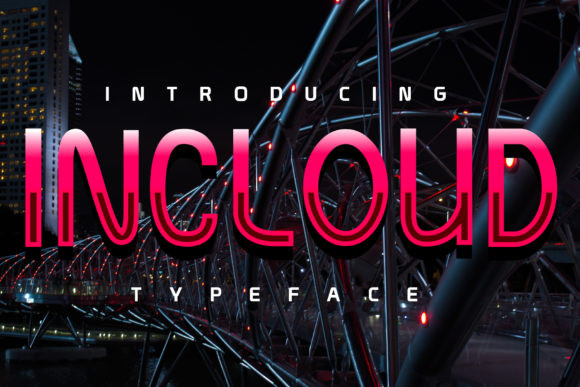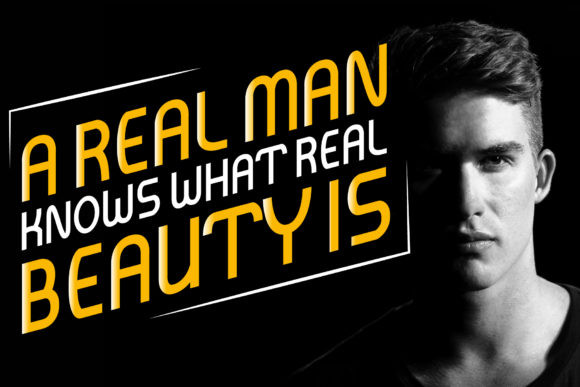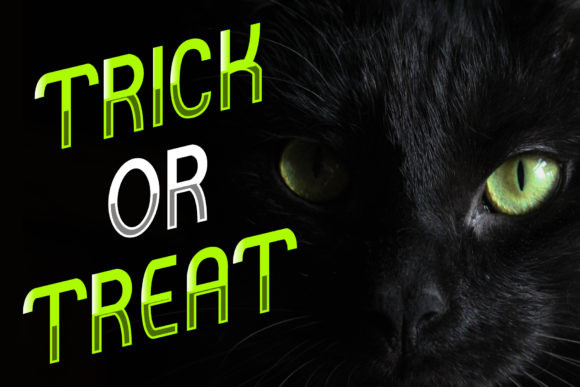
Incloud Font
Incloud feels strong, futuristic and incredibly urban. This one-of-a-kind display font will deliver any message with confidence and style!